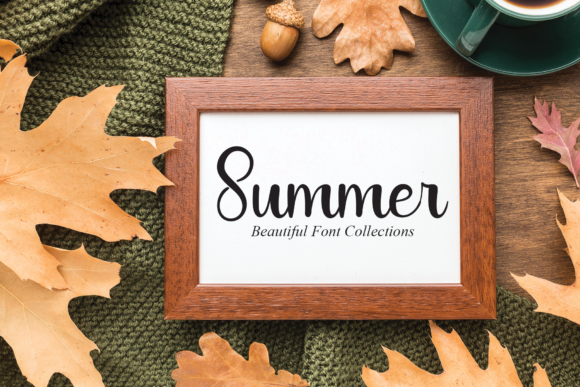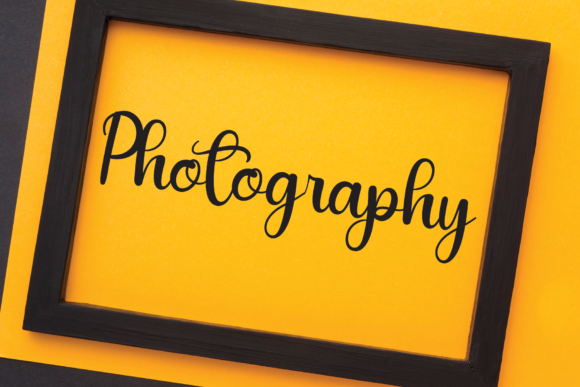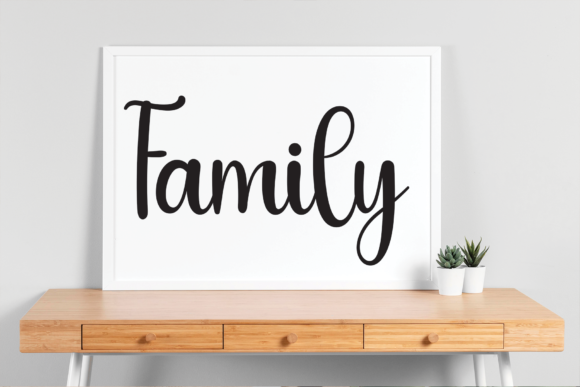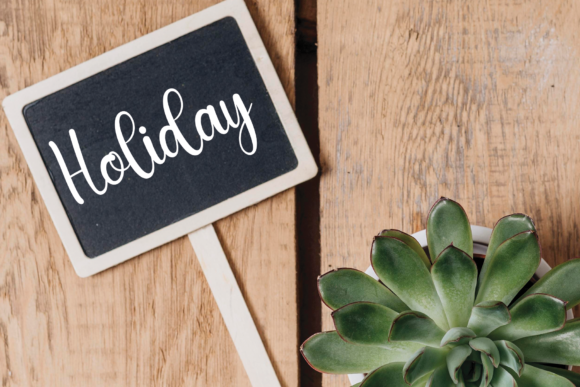
Tshirt Font
About Tshirt Font
Presenting a sweet, romantic, and beautiful script font that weaves a tale of elegance with its enchanting curves in every letter. More than a mere typeface, this font embodies a sense of romance and beauty, making it an ideal choice for projects that seek to evoke emotions and captivate the audience.
The carefully crafted curves in each letter contribute to the font’s aesthetic appeal, creating a visual experience that is both charming and delightful. Whether employed in wedding invitations, love letters, or any design requiring a touch of romance, this script font becomes a key player in conveying a sense of beauty and tenderness.
Setting it apart is its PUA coding—a feature designed to enhance user accessibility. With this coding, designers can effortlessly access all the glyphs and sweeps, facilitating a smooth and user-friendly experience. This accessibility opens up a world of creative possibilities, allowing for the exploration of various stylistic elements without constraints.
Beyond its visual allure, this script font becomes a storyteller in the realm of design. Its beautiful curves and romantic aesthetic make it particularly well-suited for projects aiming to create a visually captivating and emotionally resonant experience for the audience.
In the dynamic world of design, where conveying emotions is as crucial as visual aesthetics, this script font stands out. It goes beyond being a font and transforms into an expressive element that elevates ordinary text into a visual masterpiece. The PUA coding not only ensures a visually pleasing outcome but also underscores the font’s user-friendliness and versatility.
In summary, this sweet, romantic, and beautiful script font is a harmonious blend of artistic expression. Its captivating curves and PUA coding make it an indispensable tool for designers looking to infuse their projects with creativity and accessibility. Incorporate this font into your designs, and let it be the brushstroke that paints a canvas of elegance, leaving an indelible impression on your audience.